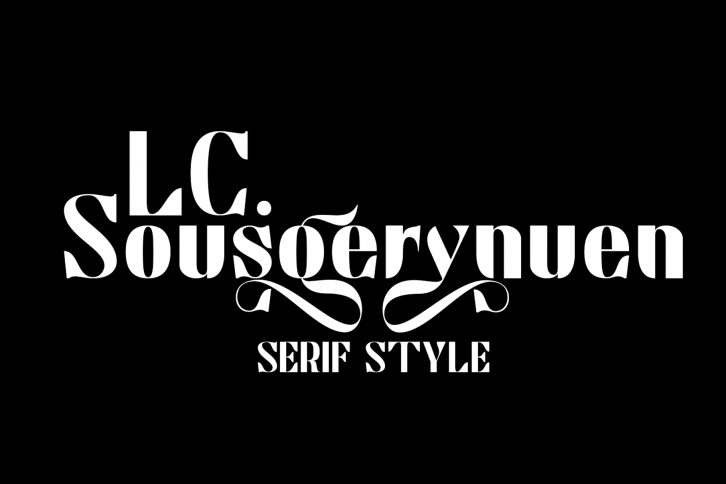
LC Sousgerynuen is a cool, bold and assertive serif font. No matter the topic, this font will be an incredible asset to your fonts’ library, as it has the potential to elevate any creation.